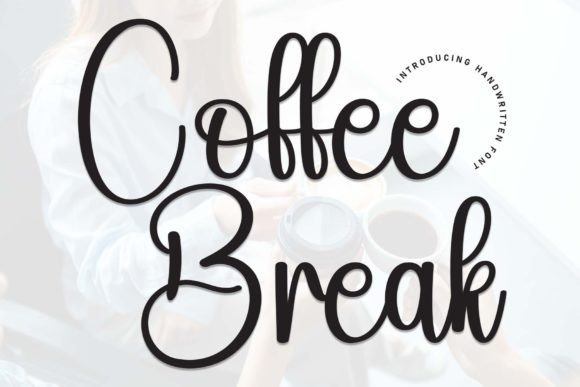
Introducing Coffee Break Font, the ultimate choice for adding a touch of sweetness and friendliness to your creative projects! This delightful handwritten font, created by the talented William Jhordy, is not just any ordinary script font. It is a masterpiece that will captivate your audience and leave a lasting impression.
Are you planning a wedding? Coffee Break Font is the perfect companion for creating stunning wedding invitations that exude charm and elegance. Its cute and playful nature will set the tone for a joyous celebration, making your guests feel truly special. Imagine their delight as they receive an invitation that reflects the love and happiness you wish to share on your big day.
But Coffee Break Font doesn't stop there. Its versatility knows no bounds! Whether you're designing greeting cards, posters, or flyers, this font will effortlessly breathe life into your creations. Its smooth strokes and unique character will instantly catch the eye and evoke a sense of excitement and curiosity. Stand out from the crowd with a font that is as distinctive as your ideas.
Want to add a fun touch to your social media posts or blog graphics? Coffee Break Font is here to make your content shine. With its engaging and personable style, it will create a connection with your audience, leaving them eager to engage and interact with your brand. Break free from the mundane and embrace the power of visual storytelling with this extraordinary font.
We understand that time is of the essence when it comes to design projects. That's why Coffee Break Font is designed to enhance your productivity. Its flawless legibility ensures that your message is conveyed effortlessly, saving you precious time and energy. Say goodbye to frustrating revisions and hello to efficiency and satisfaction.
Embrace the magic of Coffee Break Font and unlock a world of creative possibilities. Let your imagination run wild as you explore its endless potential. Whether you're a seasoned designer or just starting your creative journey, this font will be your trusted companion, guiding you towards stunning results.